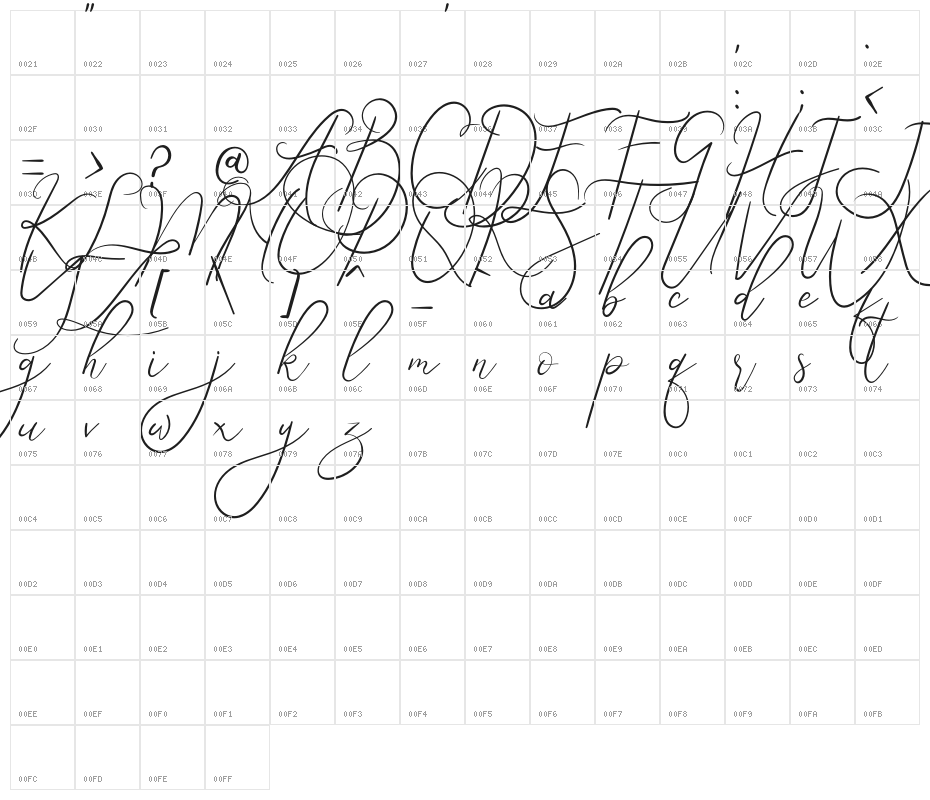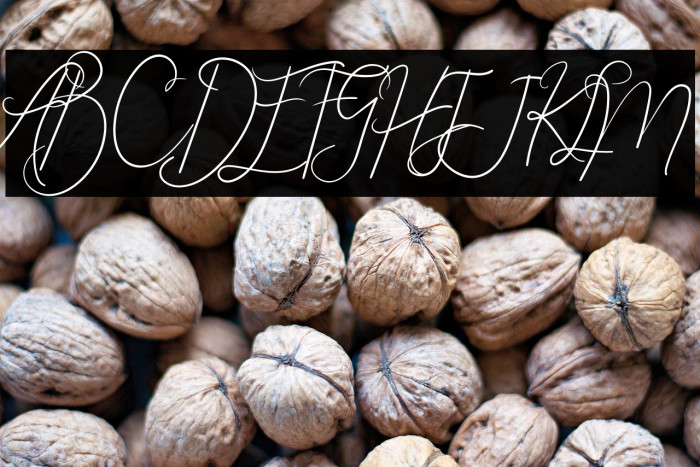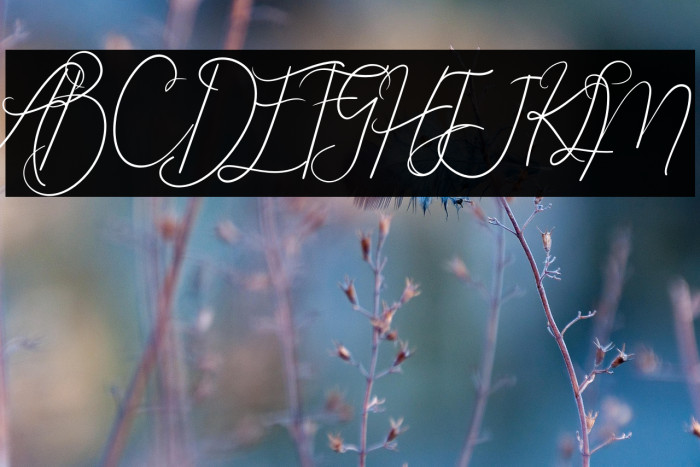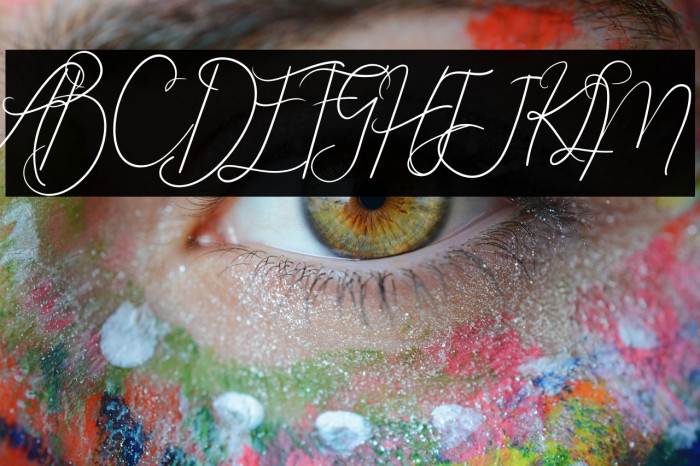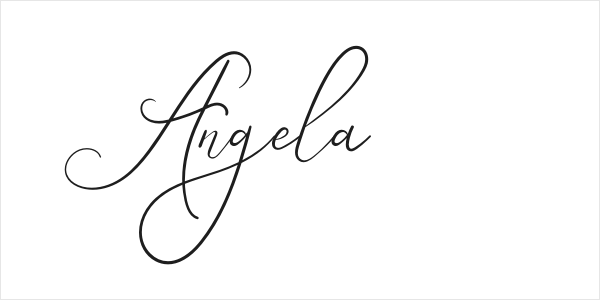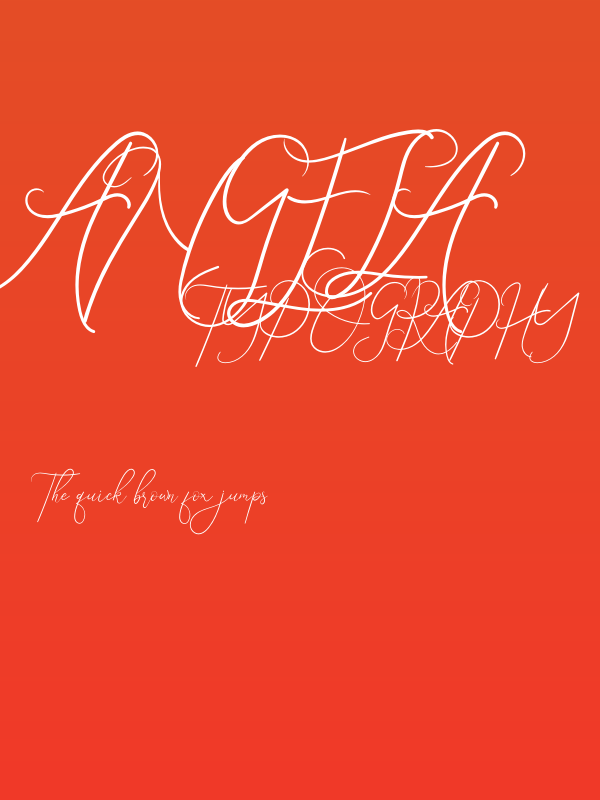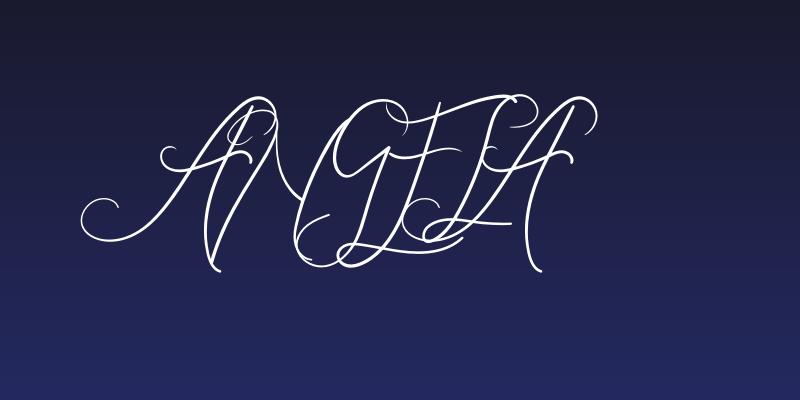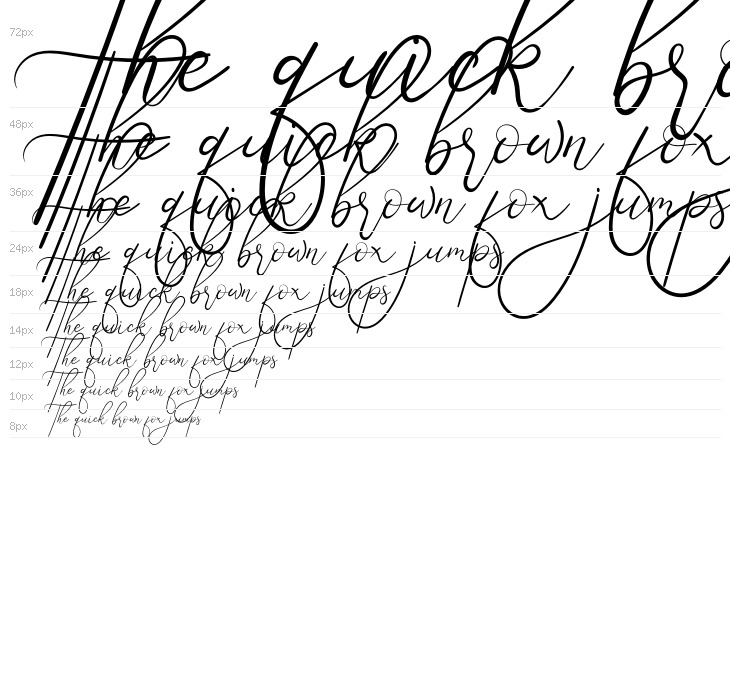
Angela Font
Angela Description
This elegant script font features a flowing, cursive style with intricate loops and swashes. The uppercase letters are grand and sweeping, while the lowercase letters maintain a graceful continuity. The font's delicate lines and curves create a sense of sophistication and fluidity, making it ideal for formal invitations, elegant branding, or any project that requires a touch of class. The characters are well-spaced, allowing for readability despite the ornate design. The overall appearance is both classic and modern, suitable for a variety of high-end applications.
| Overall Style | Elegant, Classic |
| Use Case | Invitations, Branding, Stationery |
| Proposed Projects | Ideal for wedding invitations, luxury branding, elegant stationery, and high-end product packaging. |